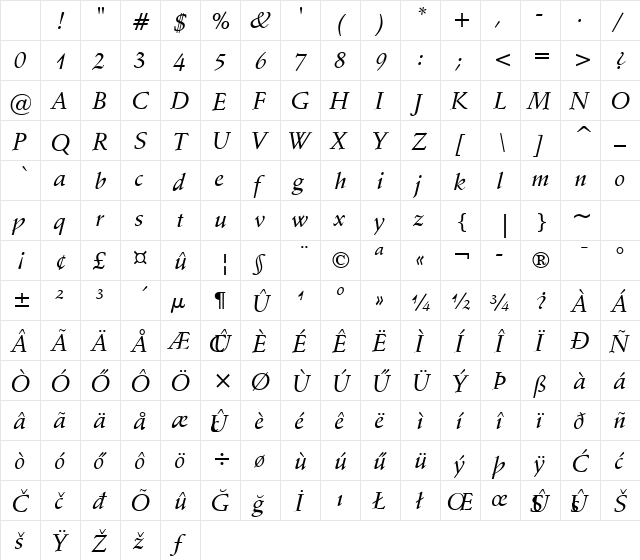
Complete LOR-Schneidler Md Medium Italic glyph index. Displaying only characters natively supported by LOR-Schneidler Md Medium Italic font.
LOR-Schneidler Md is a composed and adaptable typeface that performs quietly and consistently across a wide range of design contexts. The slanted form adds forward momentum and visual energy.
Pro Tip: Use LOR-Schneidler Md for emphasis, pull quotes, and subheadings where its slanted energy can add rhythm to the layout.